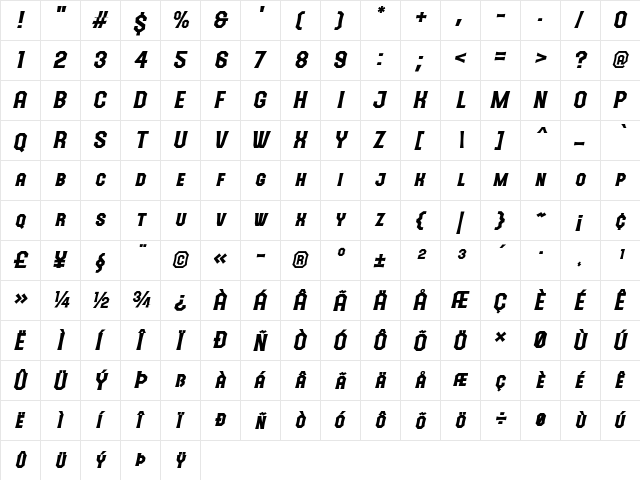
The October Two Italic
| Foundry | 7NTypes |
| Designer | Situjuh Nazara |
Design Context for The October Two Typeface
The October Two takes a measured approach to typography — its balanced proportions and neutral character make it a reliable workhorse for both digital and print work. The slanted form adds forward momentum and visual energy.
Pro Tip: Try The October Two for annotation and caption copy alongside an upright companion — the contrast in angle creates a dynamic but ordered typographic system.